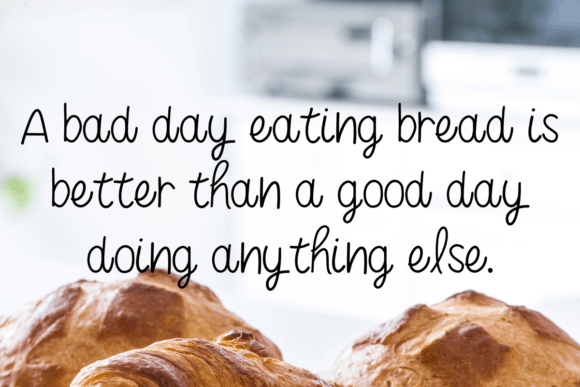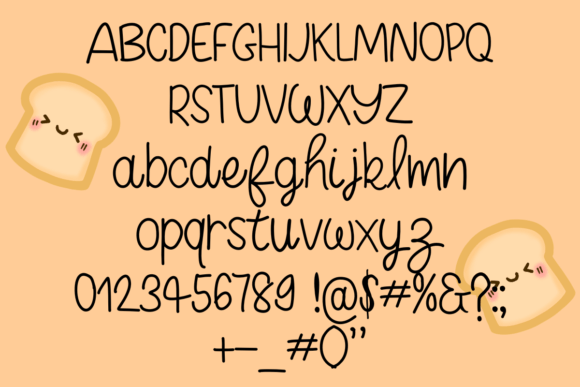
Bread Font: The Perfect Handwritten Font for Your Design Needs
Bread Font is a charming and simple handwritten font that has gained popularity among designers and crafters alike. Its natural and clean style makes it an ideal choice for a wide range of designs, from branding and packaging to invitations and crafts. In this article, we’ll dive into the world of Bread Font, exploring its features, benefits, and uses.
What is Bread Font?
Bread Font is a handwritten font designed to resemble the imperfections and uniqueness of handwritten text. Its clean and simple style gives it a friendly and approachable feel, making it perfect for designs that require a personal touch. The font’s natural look and feel make it suitable for a variety of projects, from formal to informal.
Key Features of Bread Font
- Handwritten style: Bread Font boasts a genuine handwritten style that adds a touch of warmth and personality to your designs.
- Clean and simple: The font’s clean and simple design makes it easy to read and versatile for various design applications.
- Natural look and feel: Bread Font’s natural look and feel make it perfect for designs that require a organic and earthy feel.
- Wide range of uses: From branding and packaging to invitations and crafts, Bread Font is suitable for a wide pool of designs.
Benefits of Using Bread Font
Bread Font offers several benefits to designers and crafters, including:
- Uniqueness: Bread Font’s handwritten style sets it apart from more traditional fonts, giving your designs a unique and distinctive look.
- Versatility: The font’s clean and simple design makes it versatile for various design applications, from digital to print.
- Ease of use: Bread Font is easy to read and works well in a variety of sizes, making it perfect for designs that require a clear and concise message.
- Emotional connection: The font’s natural and handwritten style creates an emotional connection with your audience, making your designs more relatable and engaging.
Uses of Bread Font
Bread Font is suitable for a wide range of design projects, including:
- Branding and packaging: Use Bread Font to create unique and eye-catching brand identities and packaging designs.
- Invitations and events: Add a personal touch to your invitations and event materials with Bread Font’s charming handwritten style.
- Crafts and DIY projects: Bread Font is perfect for crafters and DIY enthusiasts who want to add a personal touch to their projects.
- Digital designs: Use Bread Font in digital designs, such as social media graphics, blog posts, and website headers.
Tips for Using Bread Font
Here are some tips for using Bread Font effectively in your designs:
- Pair with other fonts: Pair Bread Font with other fonts to create a unique and visually appealing design.
- Experiment with colors: Try out different colors to find the perfect match for your design.
- Use in combination with images: Use Bread Font in combination with images to create a visually appealing design.
- Keep it simple: Don’t overcomplicate your design – keep it simple and clean to let Bread Font shine.
| Font Name | Bread Font |
| Author | Ch LABART |
Bread Font is a charming and versatile handwritten font that’s perfect for designers and crafters alike. Its natural and clean style makes it suitable for a wide range of designs, from branding and packaging to invitations and crafts. With its unique and distinctive look, Bread Font is sure to add a personal touch to your designs and help you stand out from the crowd.